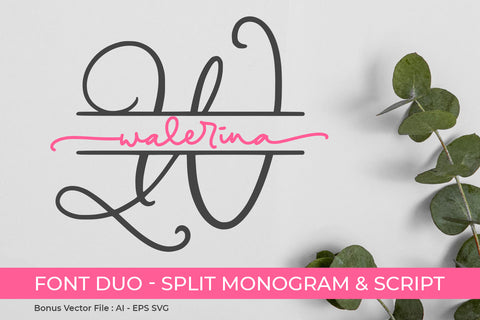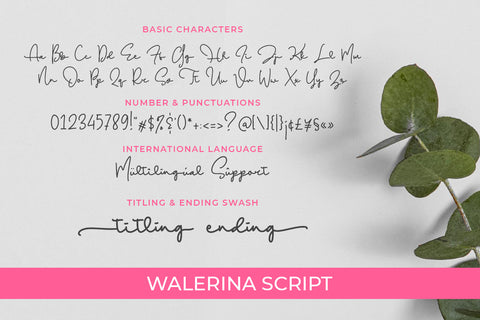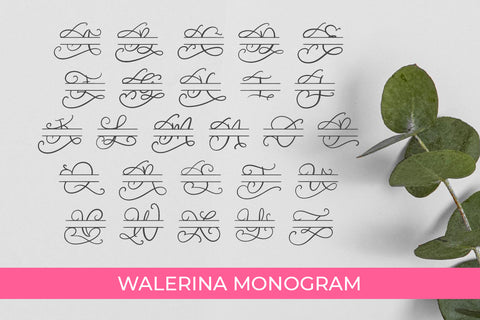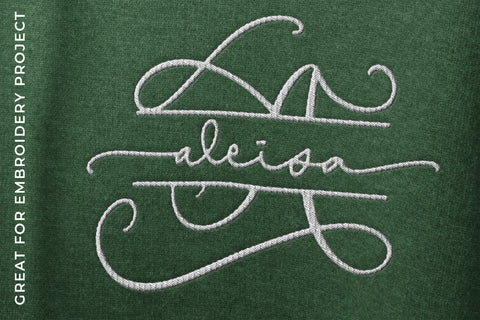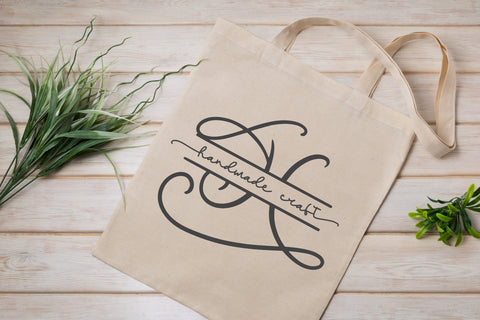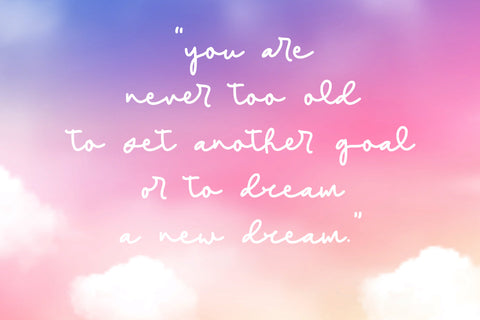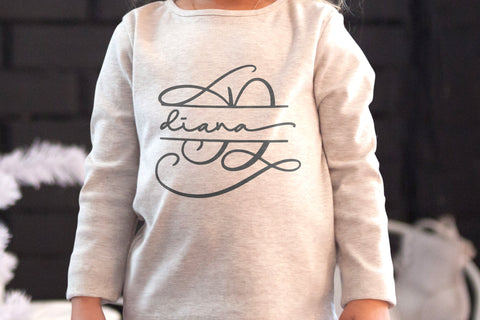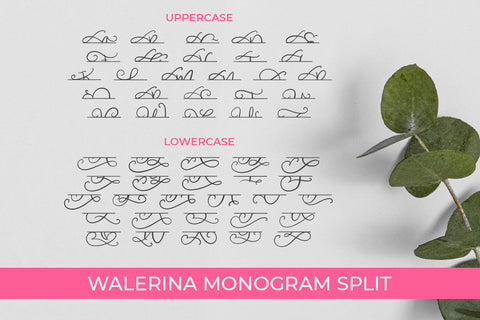
Walerina Font Duo
introducing
WALERINA
- couple font duo -
WALERINA is great for t-shirt design, cards, tote bag, cup, banner, wedding invitation, embroidery, and anything of craft project.
It came in 2 styles:
• Monogram
• Script
Both of them are perfect combination.
- WALERINA MONOGRAM
- WALERINA MONOGRAM SPLIT
- WALERINA SCRIPT
- Numeral
- Multilingual
- Swash